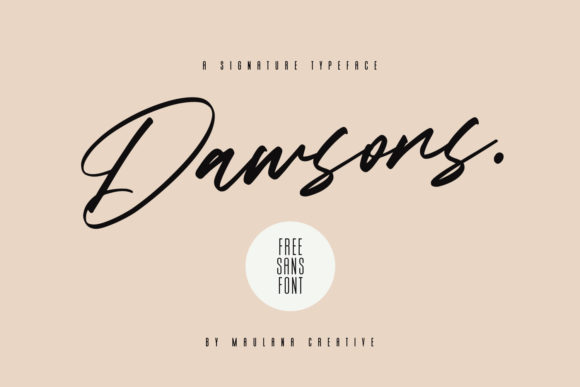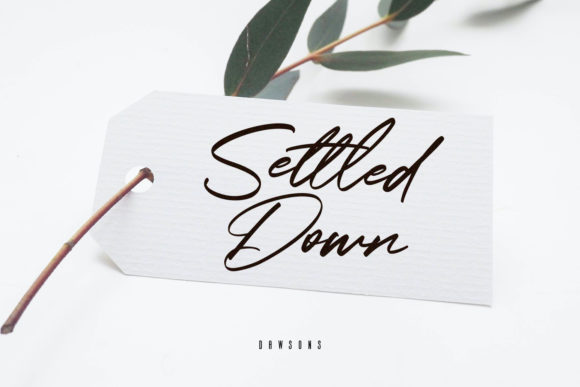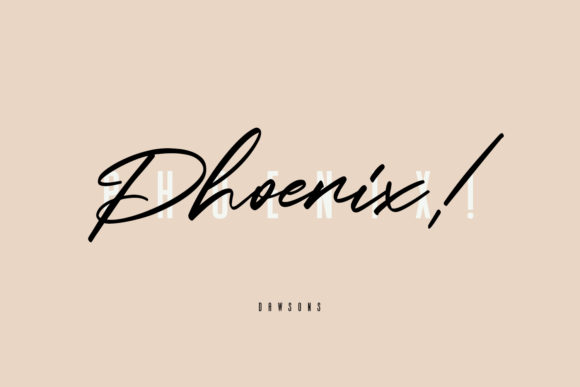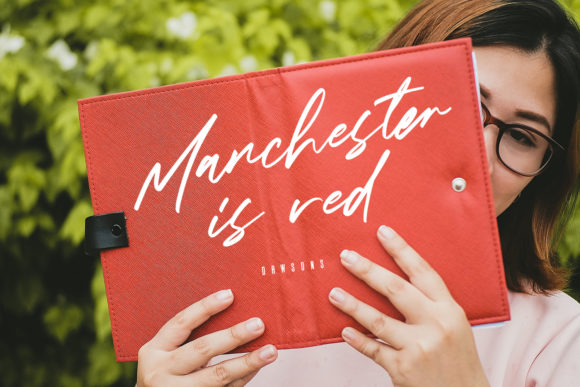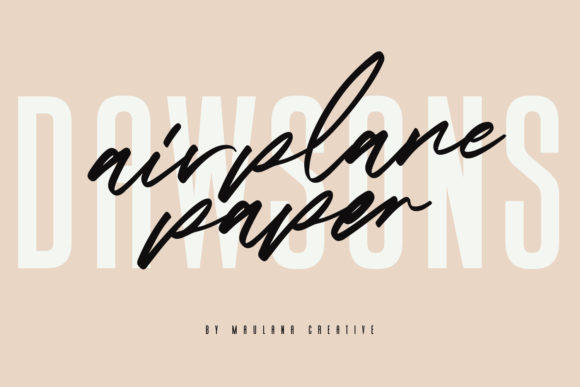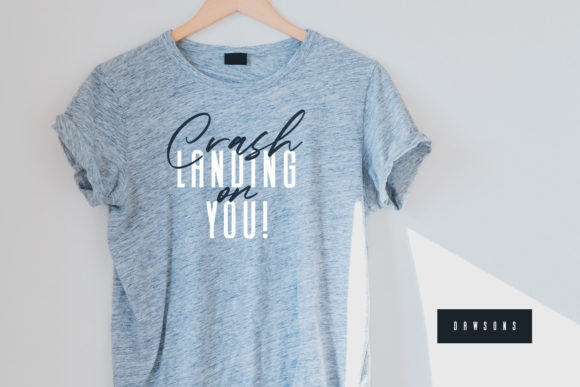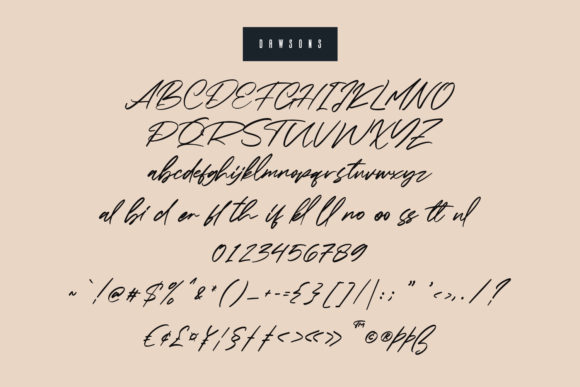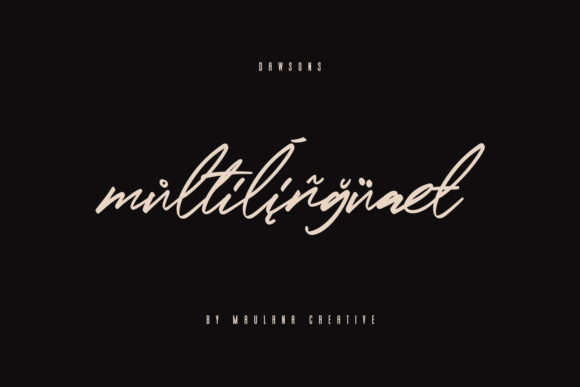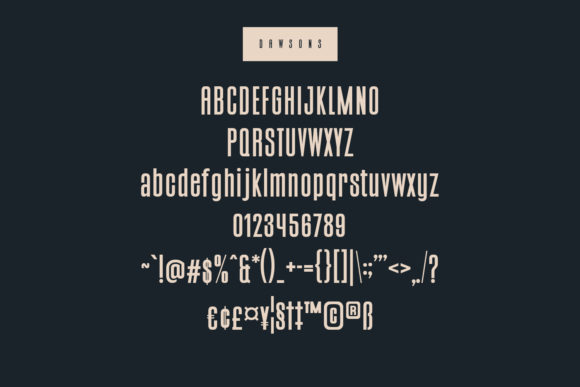
Dawsons Font
About Dawsons Font
Dawsons results out of a stunning pairing of a brush pen and pencil that makes it look incredibly endearing and authentic. It comes in two amazing styles, sans serif and script. Use this gorgeous and unique Dawsons to bring any DIY project to life!